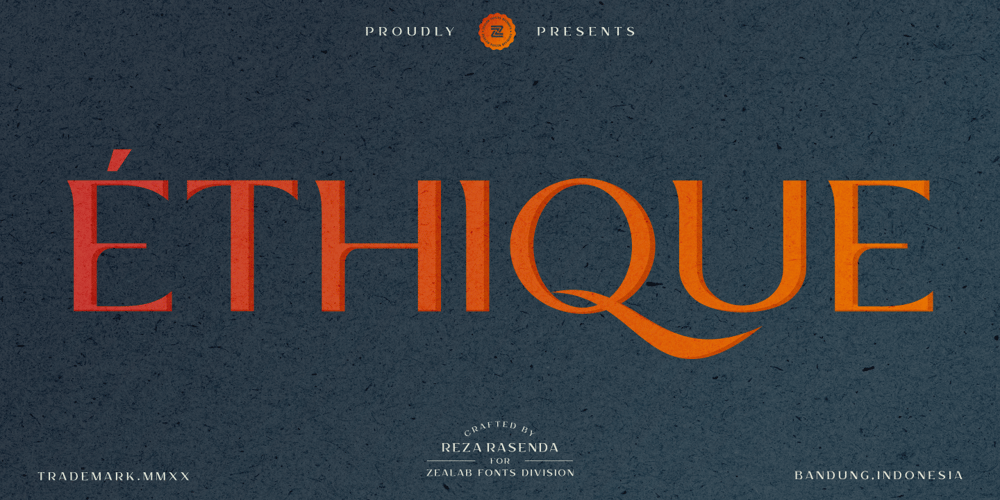
Ethique Font Family was designed by Reza Rasenda and published by Zealab Fonts Division. Ethique contains 1 styles and family package options. Ethique is a minimalist, luxury and gorgeous font that is both classically elegant and inherently modern. Create unique word mark logos, beautiful wedding invitations, use it as an elegant solution for your next magazine layout, or choose Ethique for any graphic design that require a sleek look with an elegant flair. Ethique features a unique style of design and contains multi-lingual support.